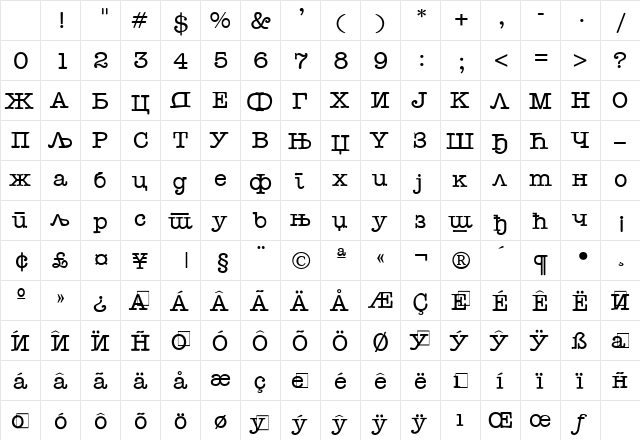
Complete Yu C American Typewriter Medium glyph index. Displaying only characters natively supported by Yu C American Typewriter Medium font.
Yu C American Typewriter uses fixed-width spacing throughout, giving it the structured, systematic character associated with coding environments and technical documentation.
Pro Tip: Use Yu C American Typewriter with slightly increased line-height for extended reading - fixed-width spacing can feel dense in longer passages without extra breathing room.